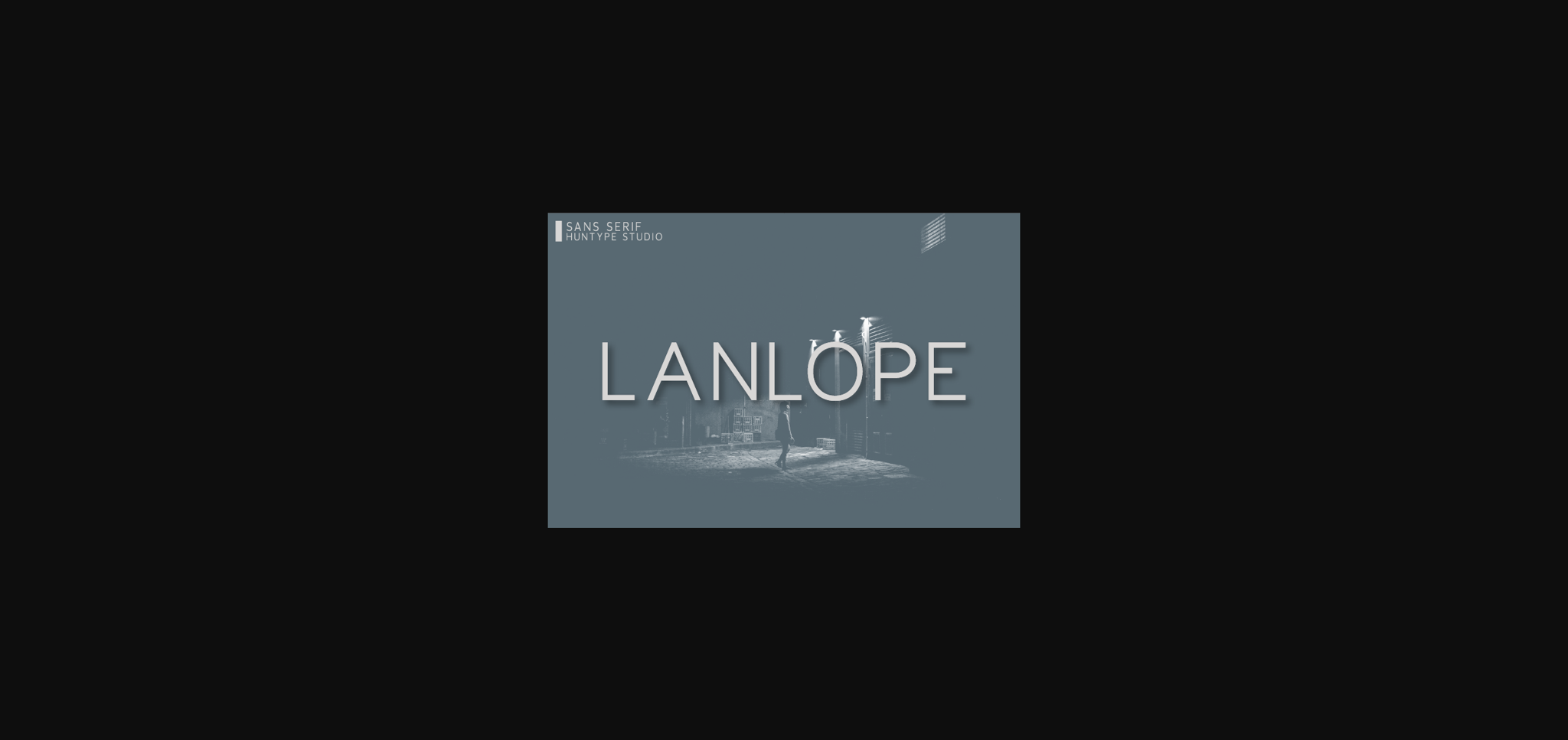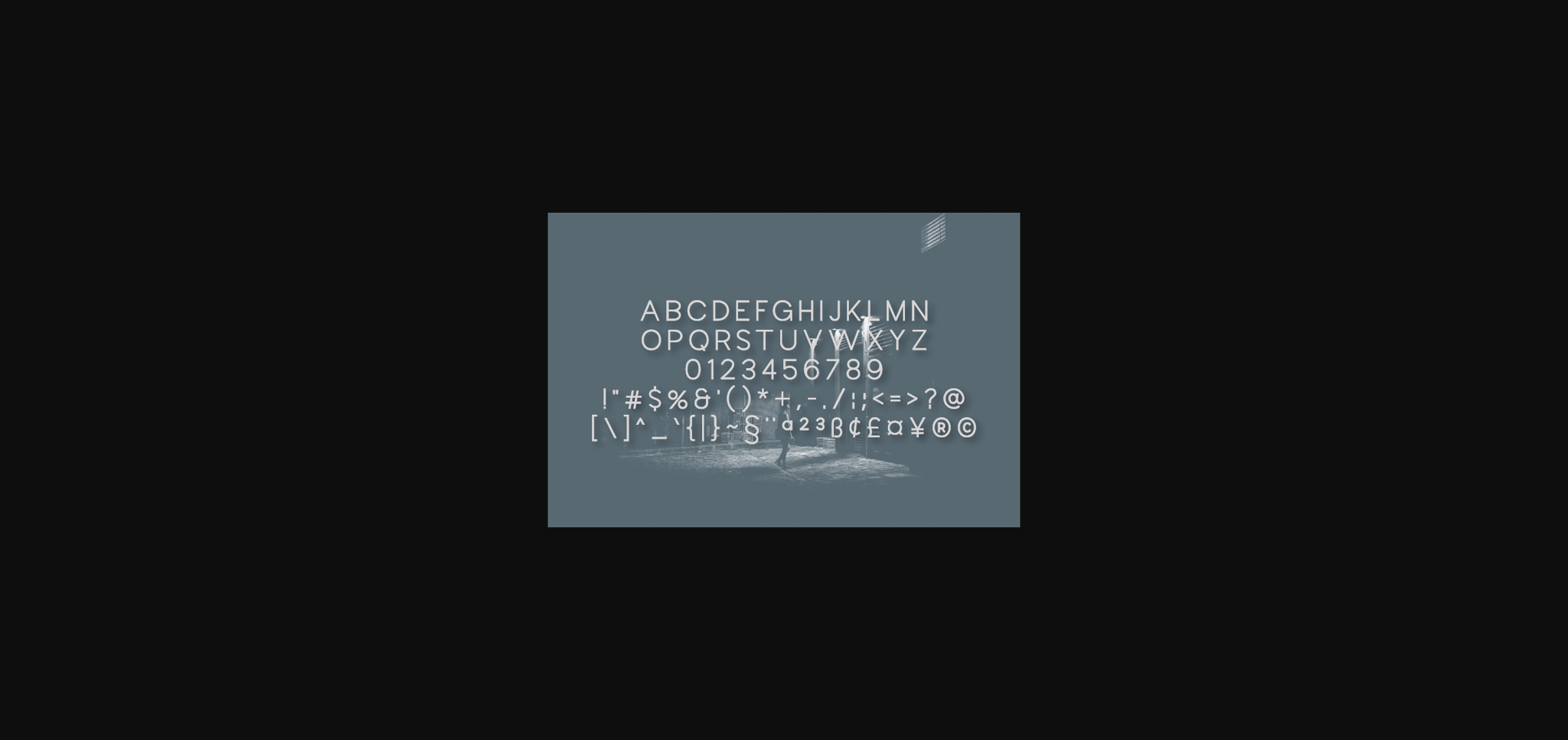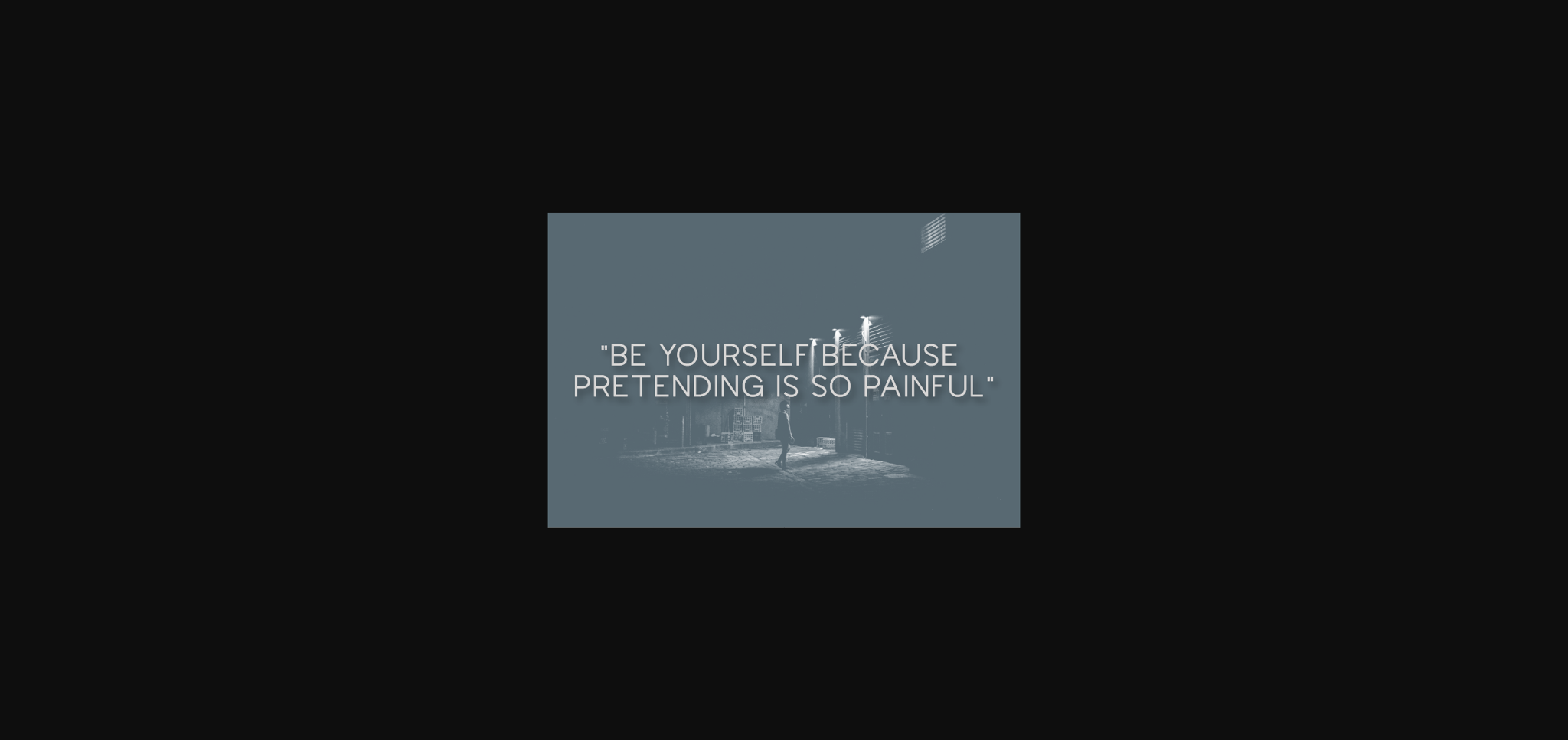
HomeSans Serif FontsLanlope Font Sans Serif Fonts Lanlope Font FacebookXPinterestWhatsApp 1 of 5 ... Lanlope Font Poster 2... Lanlope Font Poster 3... Lanlope Font Poster 4... Lanlope Font Poster 5... About Lanlope Font Lanlope is a thin and clean lettered sans serif font. It is the best choice for creating eye catching logos, branding and quotes. DOWNLOAD NOW People also explored Turkey Camping Font Hey Biancha Font Bastong Font Misgaretha Font Station Kids Font Mini Monster Font Ahra Love Font Couple Romantic Font 441 0 TagsLanlopeLanlope Font Previous articleTuelfolk FontNext articleLenatr Font LEAVE A REPLY Cancel reply Comment: Please enter your comment! Name:* Please enter your name here Email:* You have entered an incorrect email address! Please enter your email address here Website: Save my name, email, and website in this browser for the next time I comment. Personal Use Free Color Personal Use Free Read more about this font Malinda Personal Use Free Read more about this font Rocketto Personal Use Free Read more about this font Uchiyama Personal Use Free Read more about this font BLOG Transform Your Website: Elevate Your Typography with 7 Best Web Font Generators Are you ready to transform your website's typography from ordinary to extraordinary? Great! Today, we're diving into the world of web font generators, which... Best Fonts for YouTube Videos: Make Your Thumbnails Stand Out Using Fonts in Digital Marketing: Tips to Strengthen Your Brand Identity To increase your work productivity, choose the most readable fonts.